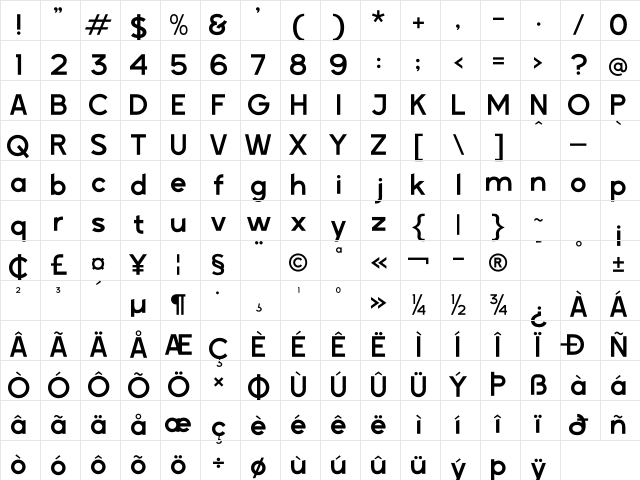
Requiner Regular
Foundry: Denu Studios
Designer: Muhammad Nugraha
Design Context for Requiner
Requiner is a composed and adaptable typeface that performs quietly and consistently across a wide range of design contexts.